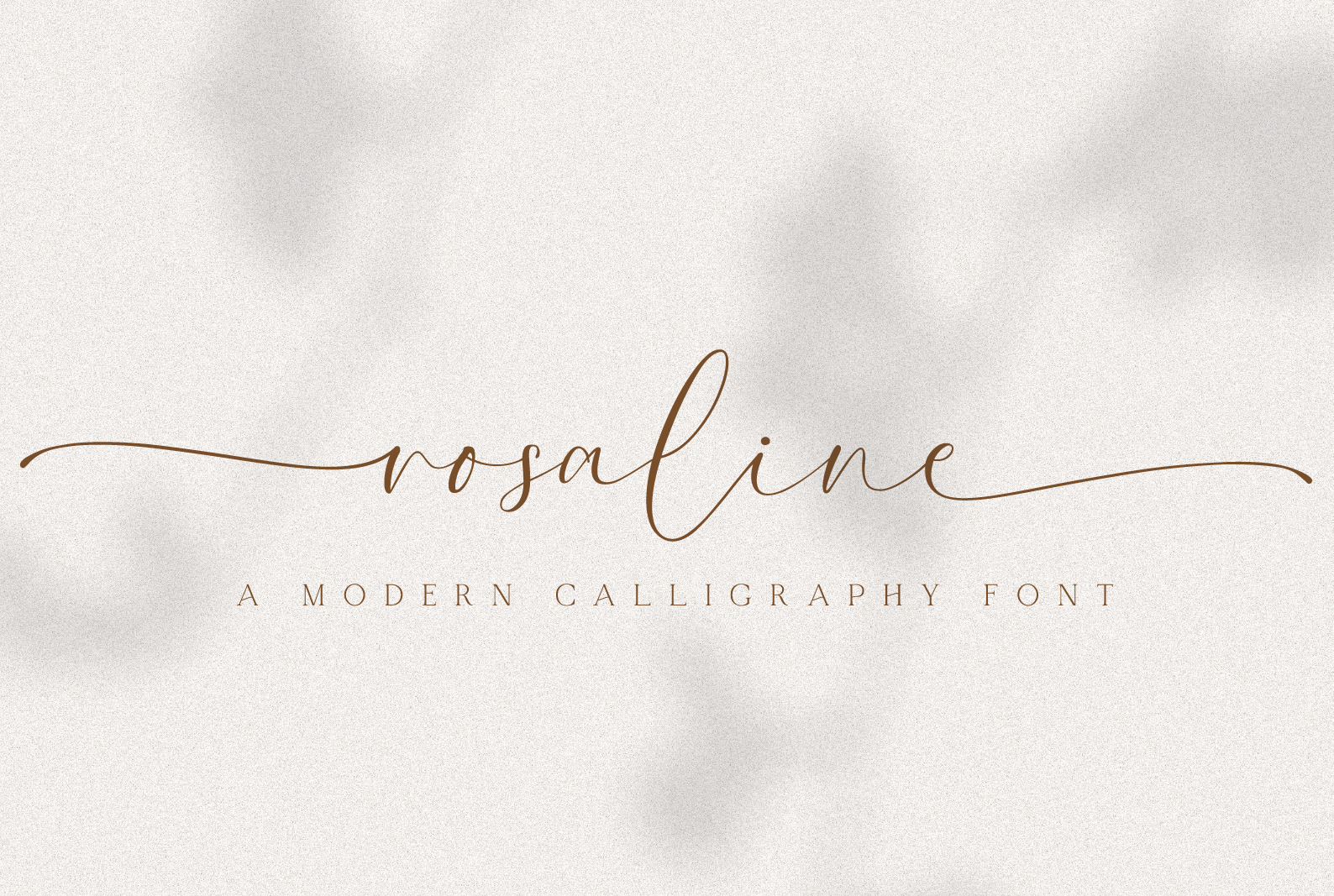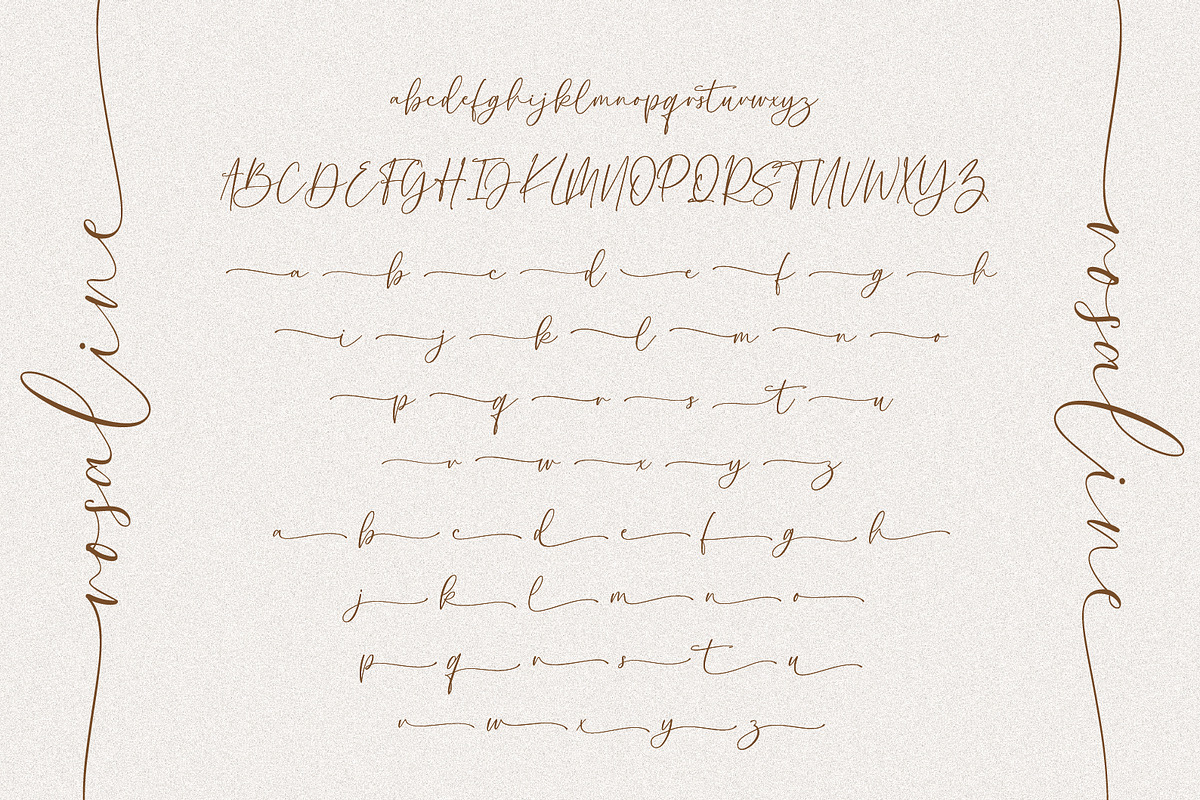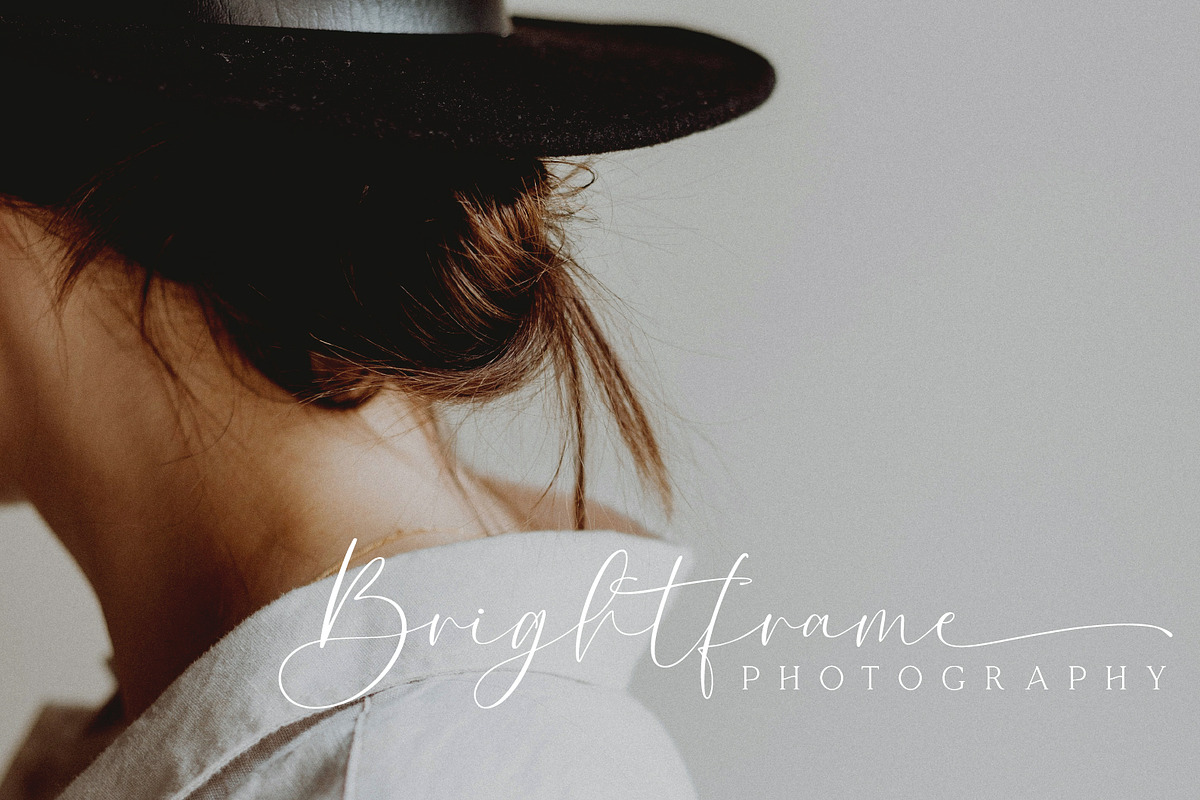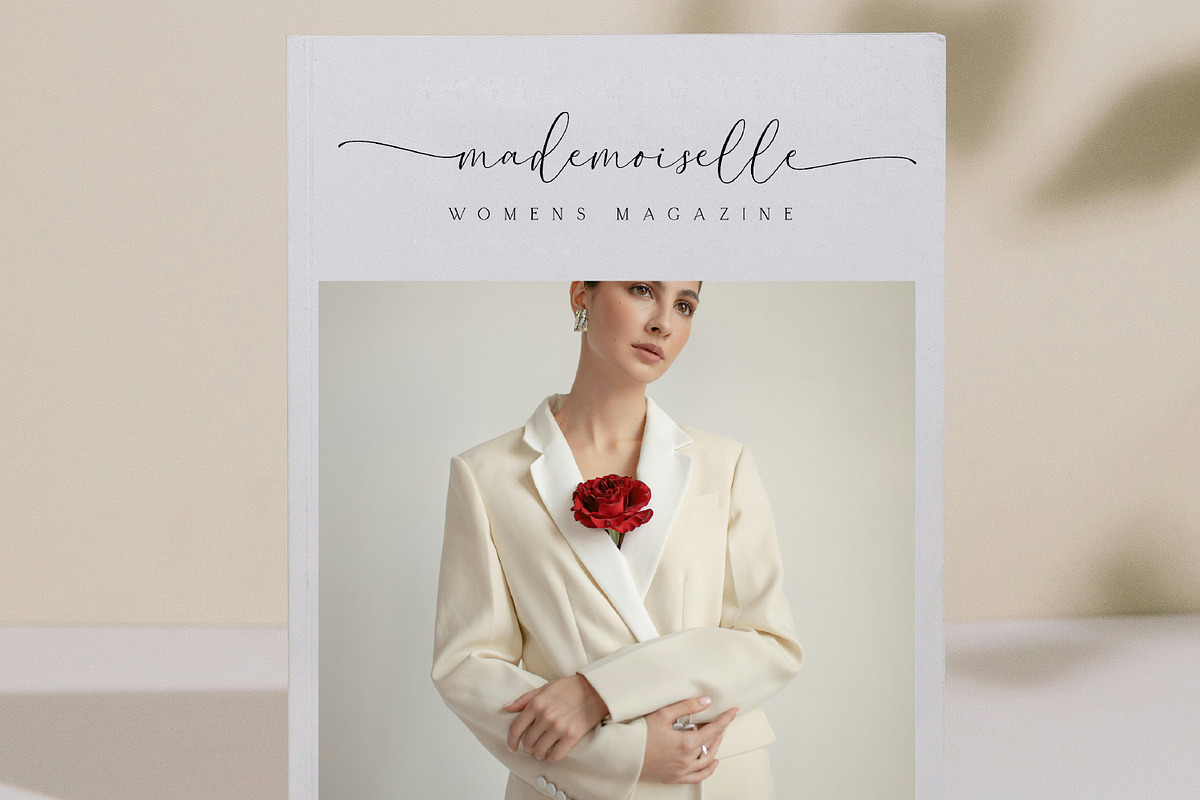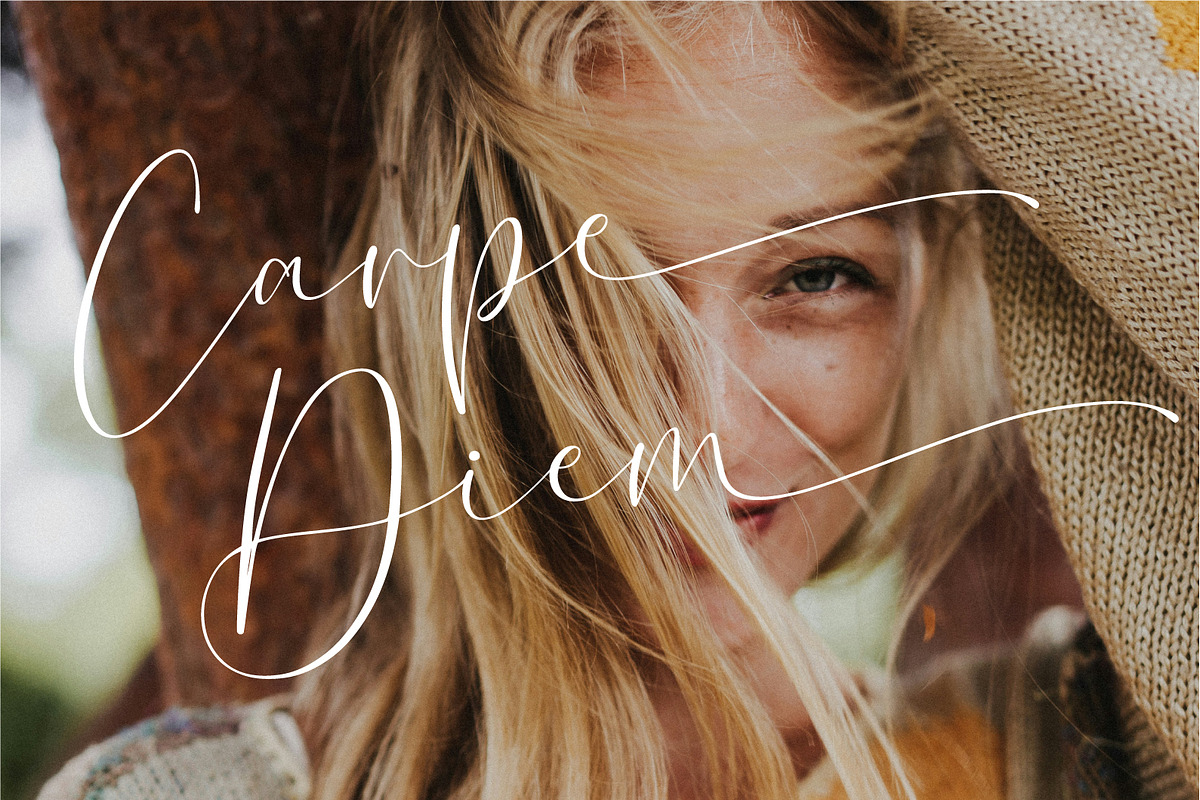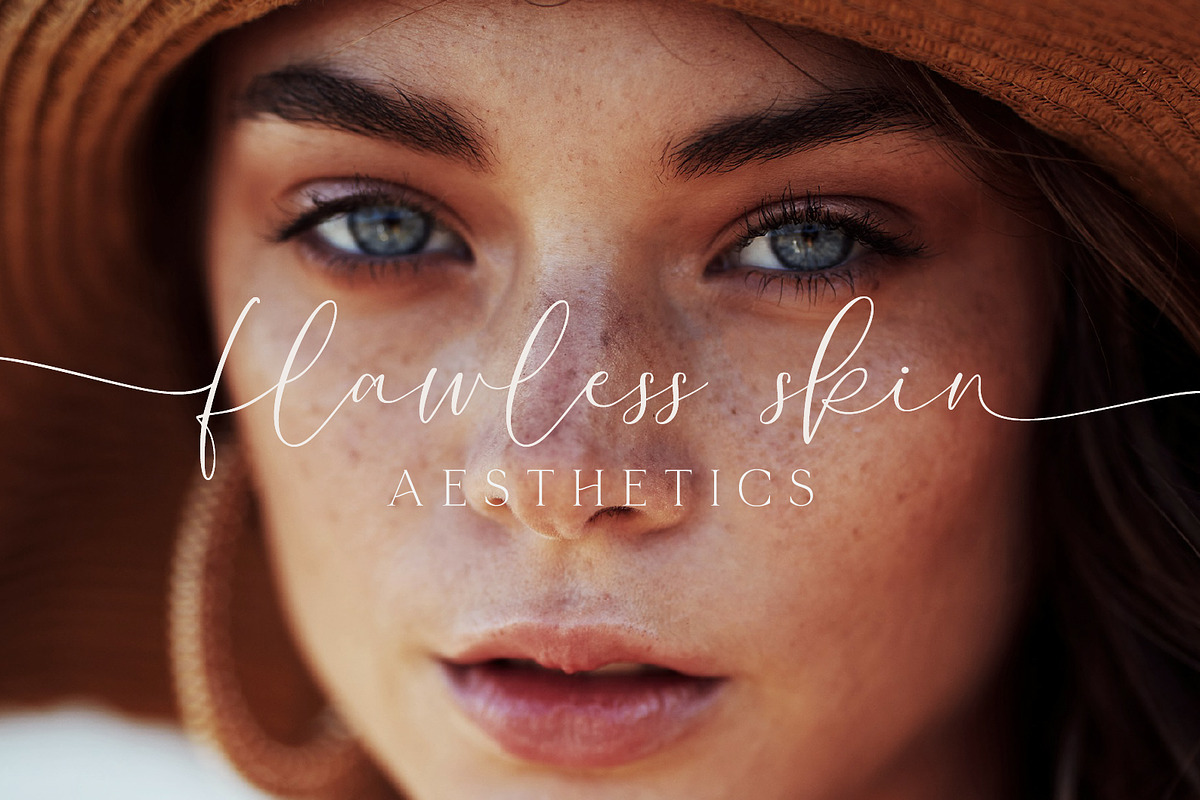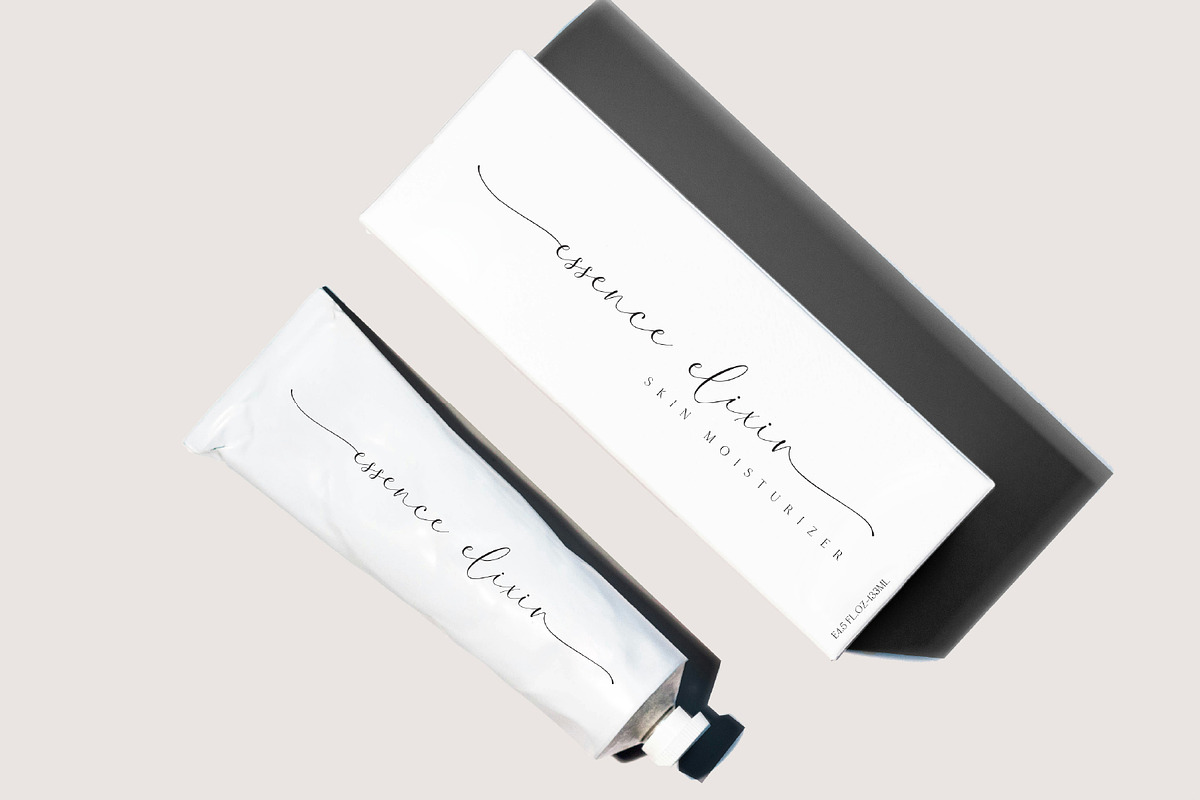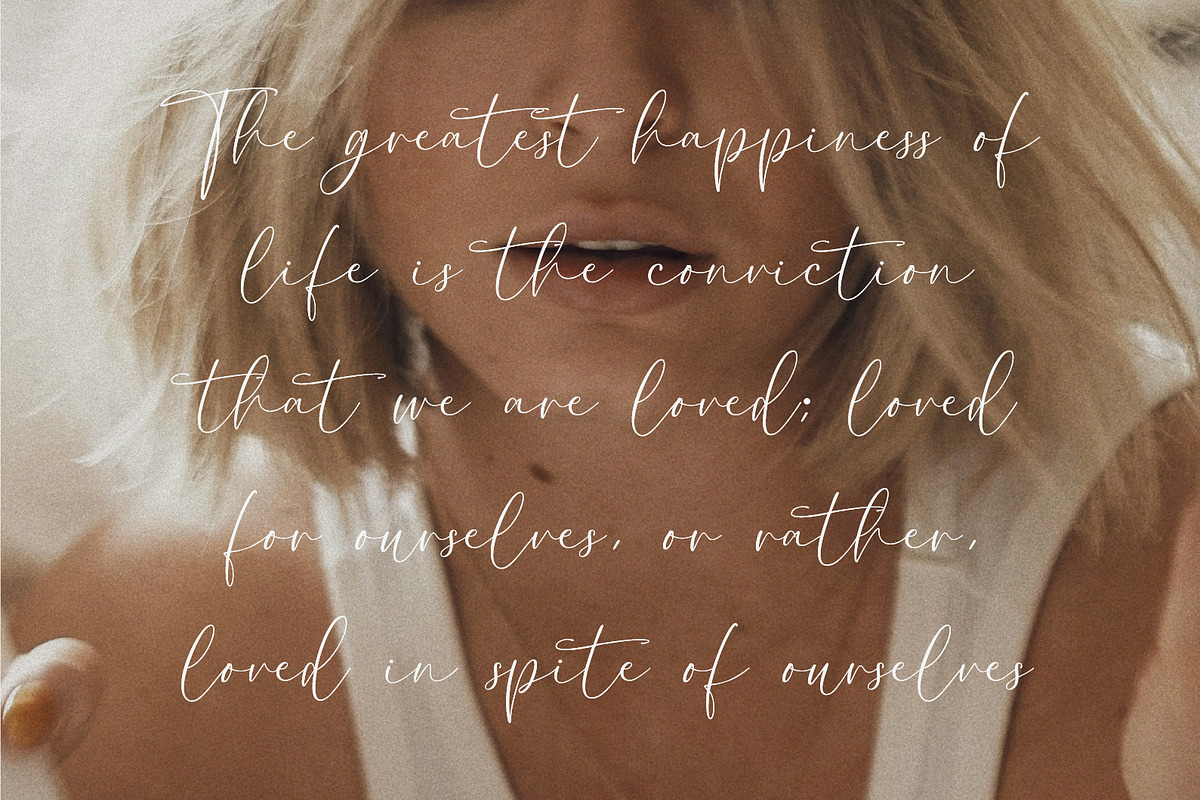
Rosaline A Delicate Script Font
Introducing Rosaline a Calligraphy Font, where elegance meets sophistication. With its graceful curves, delicate strokes, and charming stylistic alternates swashes, Rosaline adds a touch of romantic charm to any project. Perfect for wedding invitations, greeting cards, and branding materials, this font exudes timeless beauty and effortless refinement. Elevate your designs with Rosaline and let your creativity flourish.